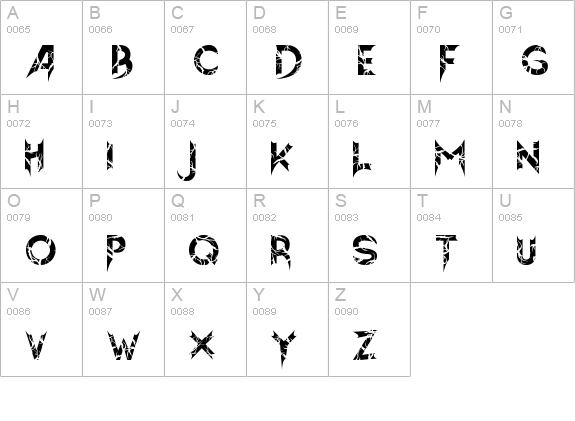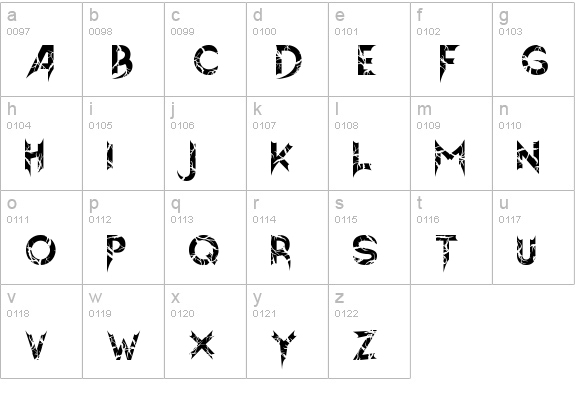
Hellion Roots is a captivating and versatile font that effortlessly combines the essence of raw power and edgy sophistication. With its strong, angular letterforms and bold strokes, this typeface exudes a sense of rebellious energy that is perfect for projects seeking to make a bold statement. Designed with meticulous attention to detail, Hellion Roots offers a unique blend of modernity and vintage charm. Its carefully crafted characters reflect a balance between sharp corners and smooth curves, resulting in a font that is both contemporary and timeless. Whether you're designing a logo, poster, or headline, Hellion Roots is the ideal choice to add a touch of character and attitude to your work. Its distinct personality will command attention and leave a lasting impression on your audience. What makes Hellion Roots even more remarkable is that it is available for free. Yes, you heard it right – this incredible font can be downloaded at no cost from FontsMarket.com. Now, you can unleash your creativity without any limitations or financial constraints. So, why wait? Dive into the world of Hellion Roots and let its powerful presence enhance your designs. Download it for free today at FontsMarket.com and embark on a design journey like no other.